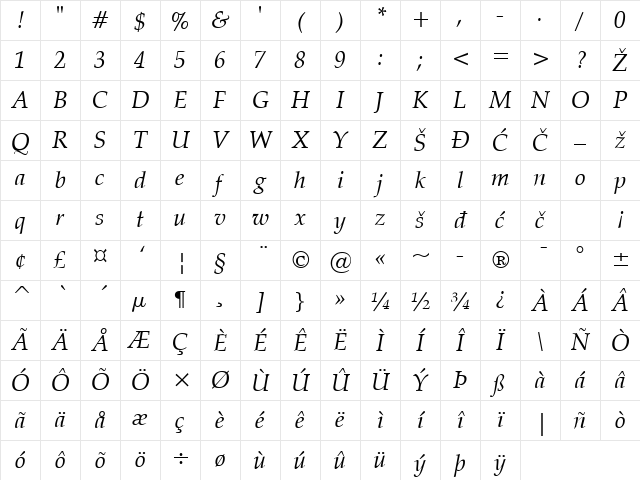
PalmSprings Italic
Complete PalmSprings Italic glyph index. Displaying only characters natively supported by PalmSprings Italic font.
Design Context for PalmSprings
PalmSprings is a composed and adaptable typeface that performs quietly and consistently across a wide range of design contexts. The slanted form adds forward momentum and visual energy.
Pro Tip: Use PalmSprings for emphasis, pull quotes, and subheadings where its slanted energy can add rhythm to the layout.